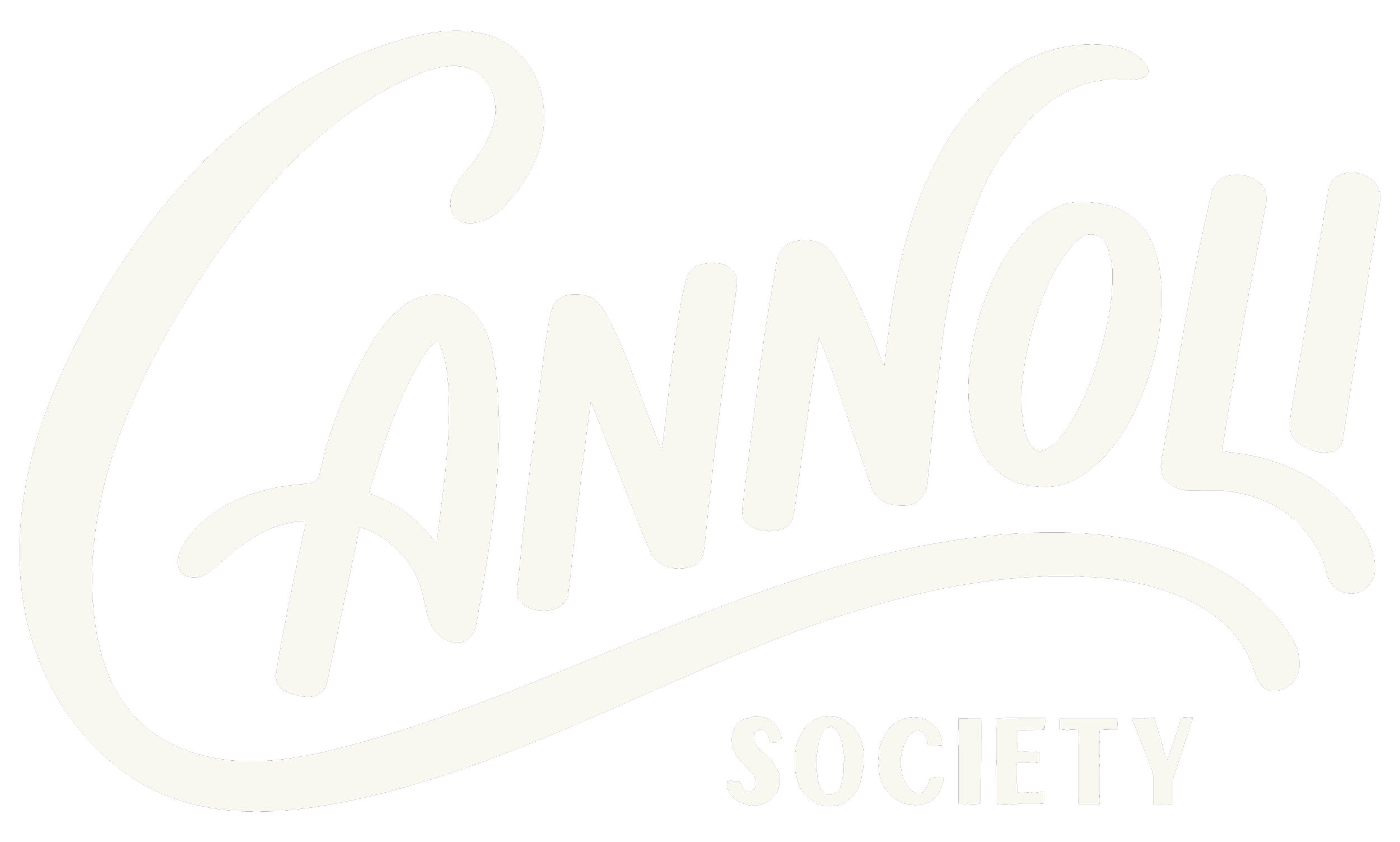
Cannoli Society
Cannoli Society started with one rule: shells stay crisp until the moment they're filled. So every order is piped to order the same day it's served. No soggy shells, no shortcuts, just the version of a cannoli your Nonna would approve of.
I wanted to create a brand the felt fresh and fun. The custom wordmark feels as if it was hand-piped. The colors palette feels feminine and decidant but still approachable. The bubble photo frames invoke the fluffy whipped ricotta. Overall creating a brand experience that feels like that best addition to your next wedding or event.